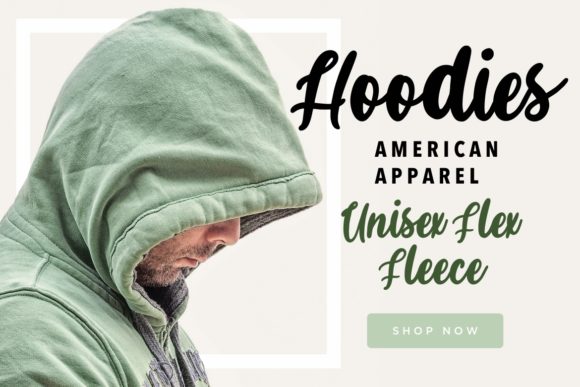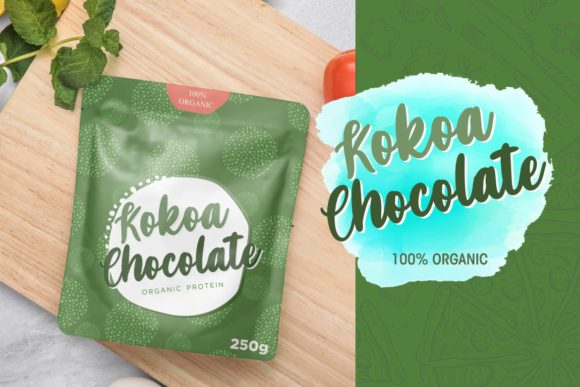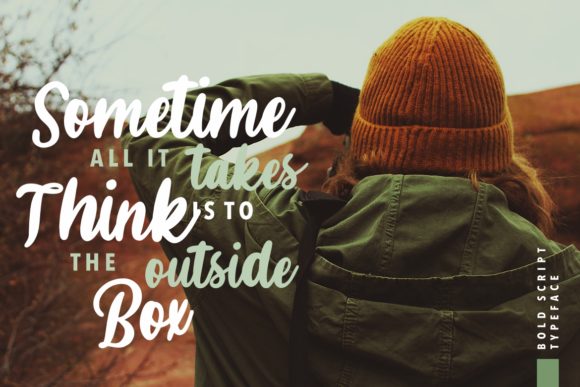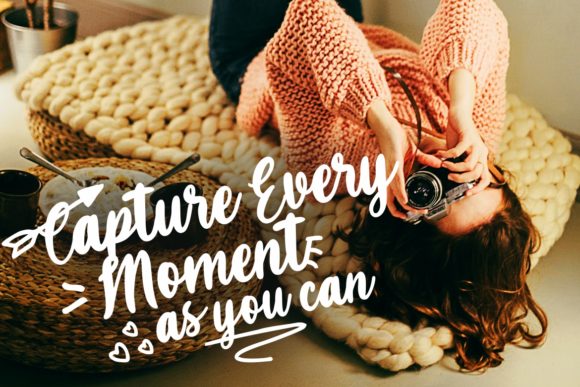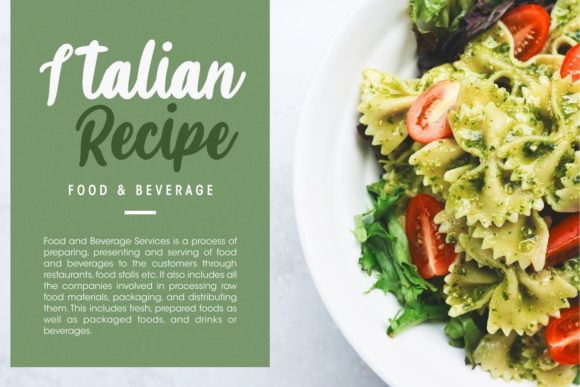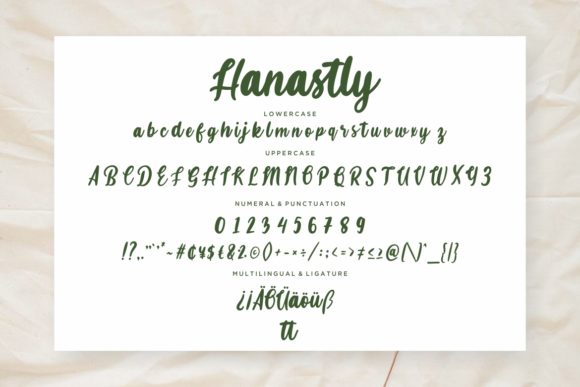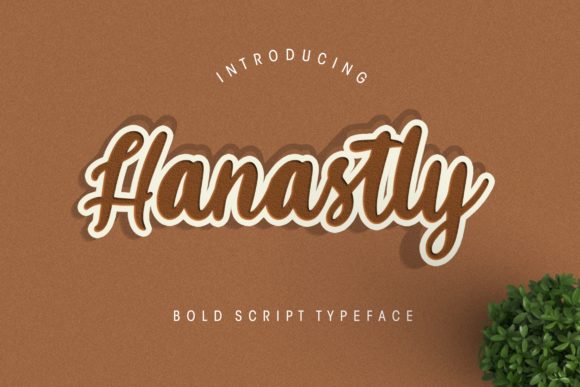
Introducing Hanastly Font: The Ultimate Script for Crafting and Design
Are you a designer, crafter, or DIY enthusiast looking for a font that embodies class, boldness, and modernity? Look no further than Hanastly Font! This extremely versatile script is making waves in the design community, and for good reason. In this article, we’ll dive into the world of Hanastly Font, exploring its features, benefits, and uses, and why it’s the ideal choice for crafting and design projects.
What is Hanastly Font?
Hanastly Font is a modern script font that exudes elegance and sophistication. Its unique blend of classic and contemporary elements makes it perfect for a wide range of design applications, from crafting and DIY projects to branding and advertising. With its bold and fluid strokes, Hanastly Font is sure to make a statement in any design.
Key Features of Hanastly Font
- Classy and Elegant: Hanastly Font boasts a refined and sophisticated aesthetic, perfect for designs that require a touch of luxury and poise.
- Bold and Modern: With its bold strokes and contemporary feel, Hanastly Font is ideal for designs that demand attention and make a statement.
- Extremely Versatile: Hanastly Font is suitable for a wide range of design applications, from crafting and DIY projects to branding, advertising, and more.
- Script Font: Hanastly Font is a script font, making it perfect for designs that require a personal and creative touch.
Benefits of Using Hanastly Font
So why choose Hanastly Font for your design projects? Here are just a few benefits of using this amazing font:
- Adds a Touch of Elegance: Hanastly Font brings a level of sophistication and refinement to any design, making it perfect for projects that require a touch of luxury.
- Boosts Creativity: With its unique and modern aesthetic, Hanastly Font is sure to inspire creativity and spark new ideas.
- Perfect for Crafting and DIY Projects: Hanastly Font is ideal for crafting and DIY projects, such as making signs, cards, and other handmade items.
- Great for Branding and Advertising: Hanastly Font is also perfect for branding and advertising projects, such as logos, brochures, and social media graphics.
How to Use Hanastly Font in Your Design Projects
Using Hanastly Font in your design projects is easy! Here are a few tips to get you started:
- Pair it with Other Fonts: Hanastly Font pairs well with other fonts, such as sans-serif fonts like Arial or Helvetica. Experiment with different font combinations to find the perfect look for your design.
- Use it for Headings and Titles: Hanastly Font is perfect for headings and titles, where its bold and elegant strokes can make a statement.
- Add it to Your Crafting Projects: Hanastly Font is ideal for crafting and DIY projects, such as making signs, cards, and other handmade items.
In conclusion, Hanastly Font is a versatile and elegant script font that is perfect for a wide range of design applications. Its classy, bold, and modern aesthetic makes it ideal for crafting and design projects, and its extreme versatility ensures that it can be used in a variety of contexts. Whether you’re a designer, crafter, or DIY enthusiast, Hanastly Font is sure to become a go-to font in your design arsenal.